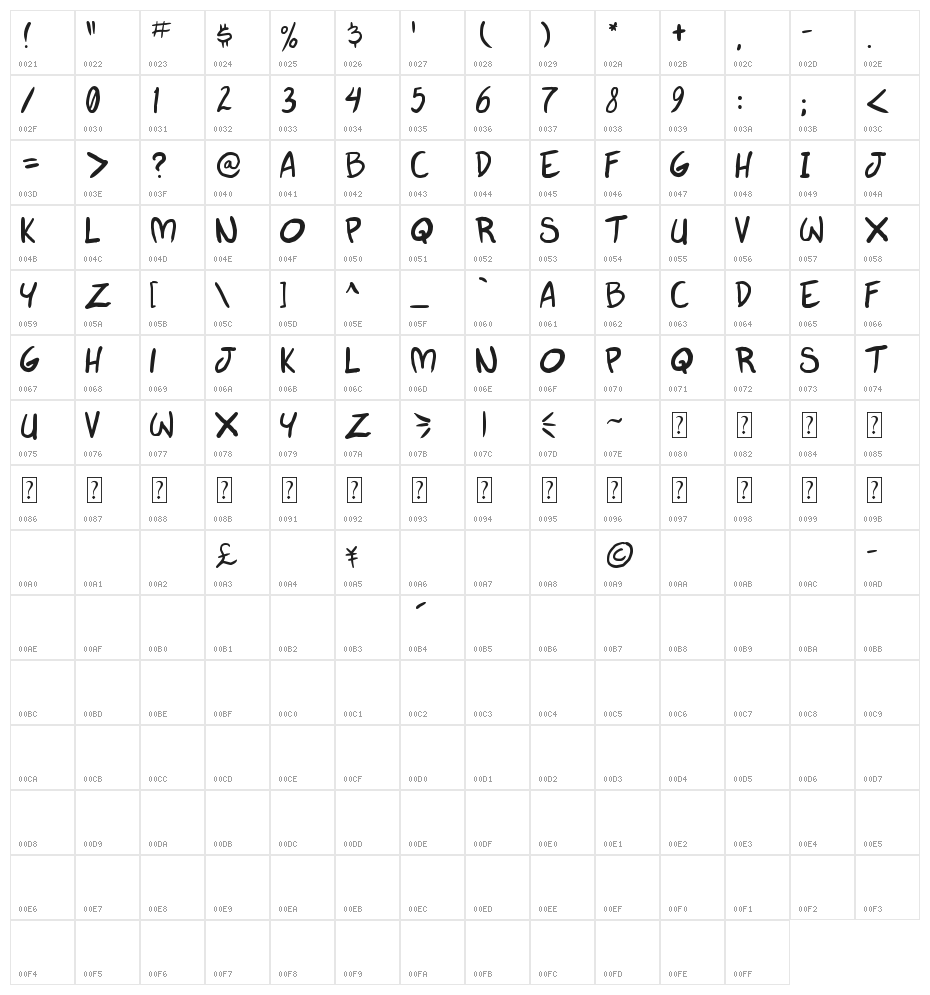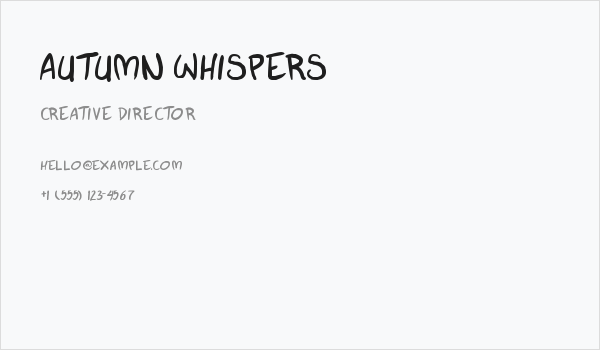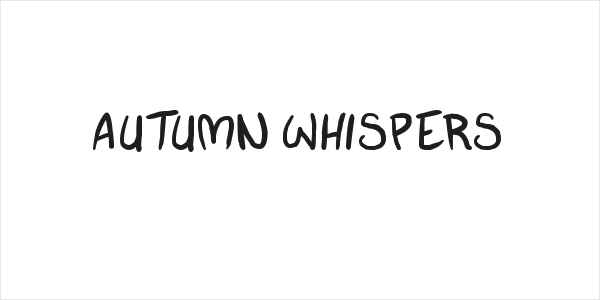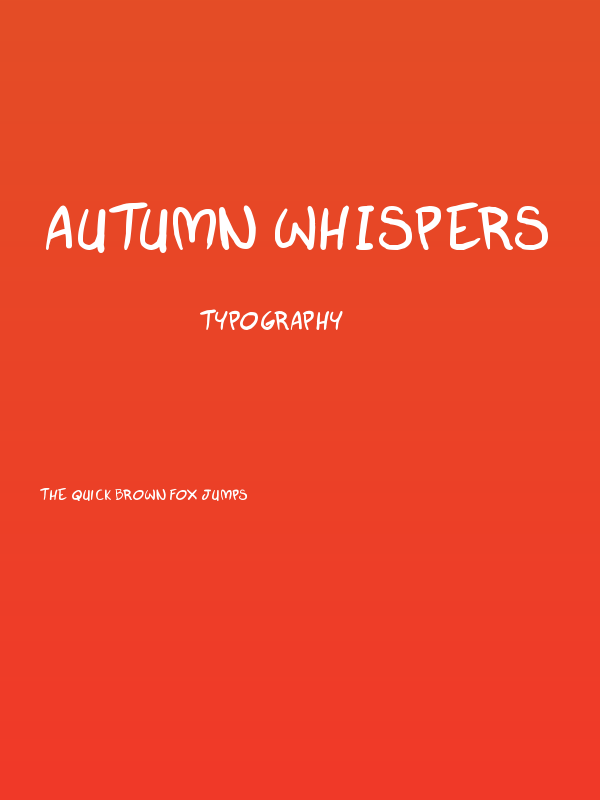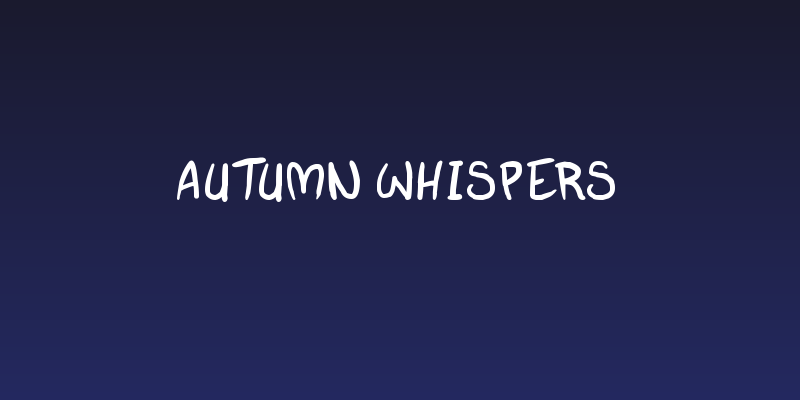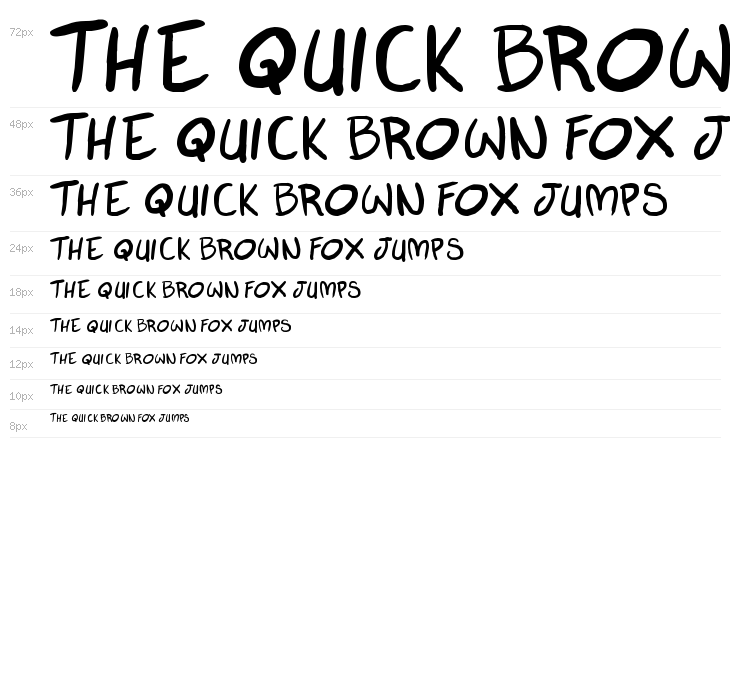
autumn whispers Font
autumn whispers Description
This font exudes a playful and casual handwritten style, characterized by its fluid and slightly irregular strokes. The letters have a natural, organic feel, with varying thickness that adds to its charm. The uppercase and lowercase letters maintain a consistent style, with rounded edges and a slight slant that gives a sense of movement. The numerals and special characters are equally expressive, fitting seamlessly with the overall aesthetic. This font is perfect for projects that require a personal touch, such as invitations, greeting cards, or creative branding.
| Proposed Projects | Ideal for invitations, greeting cards, creative branding, and personal projects. |